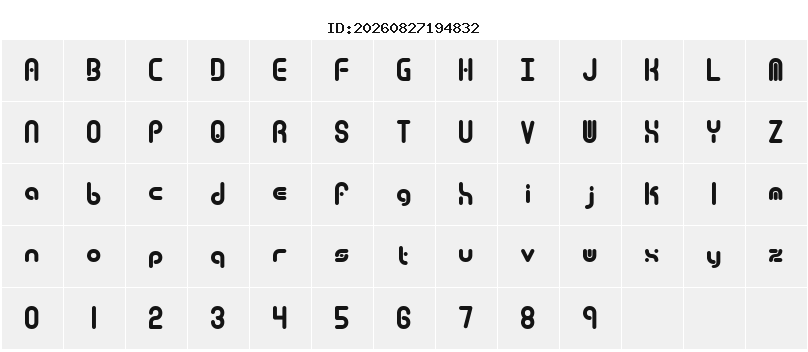
• Font Name: techno overload (BRK)
• Full Font Name: techno overload -BRK-
About techno overload (BRK).ttf
techno overload (BRK).ttf is a modern, elegant sans-serif font designed for ultimate readability and visual harmony. Perfect for branding, headlines, web design, and print materials.